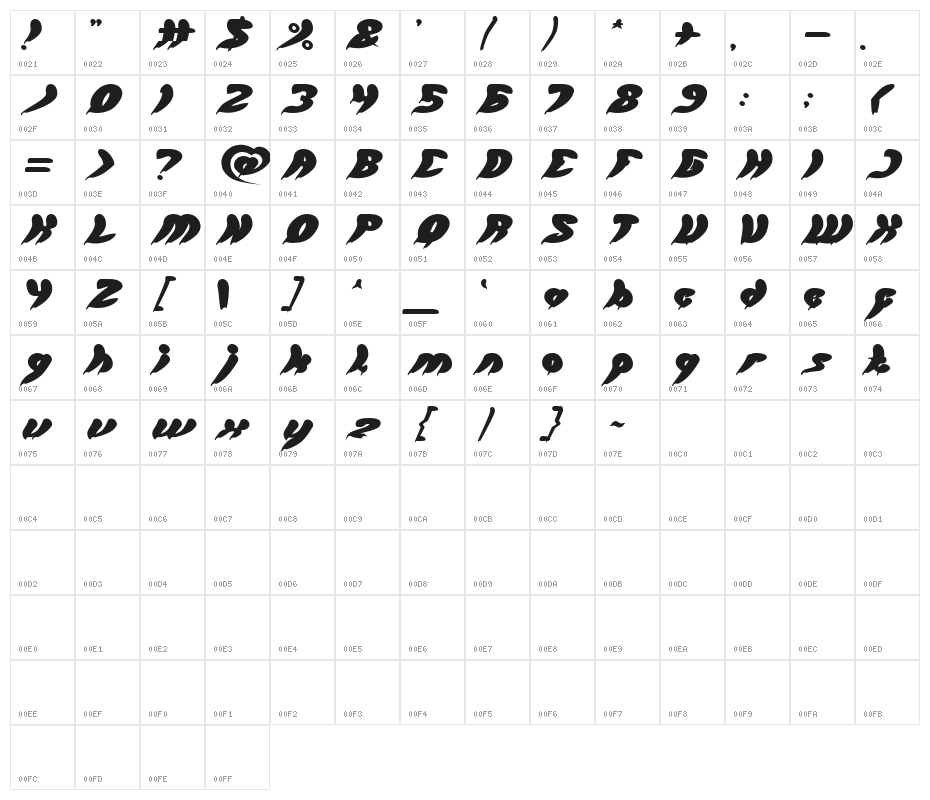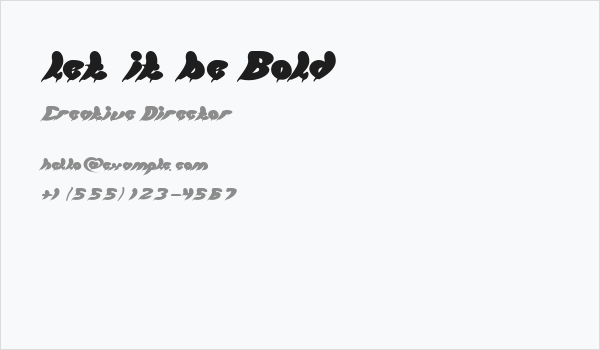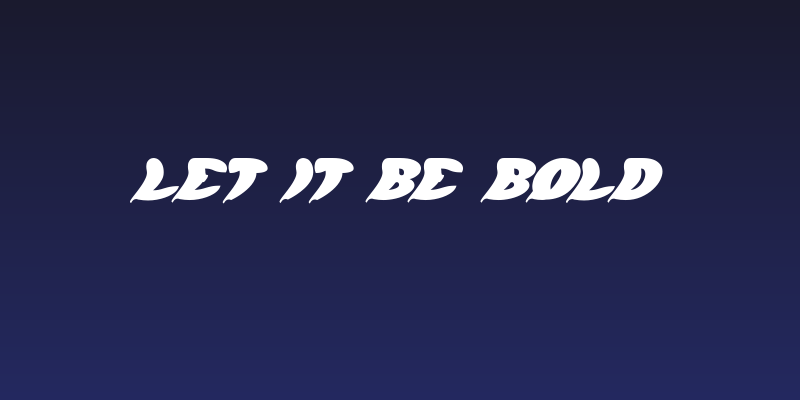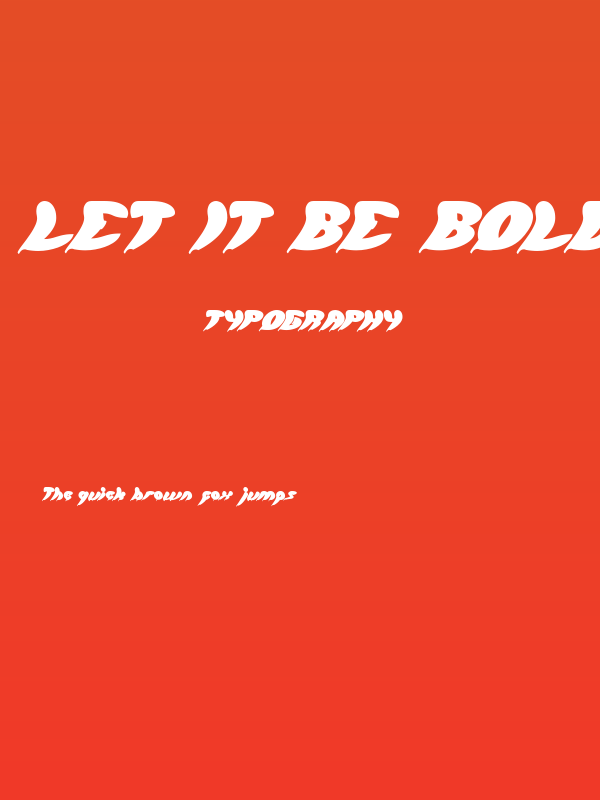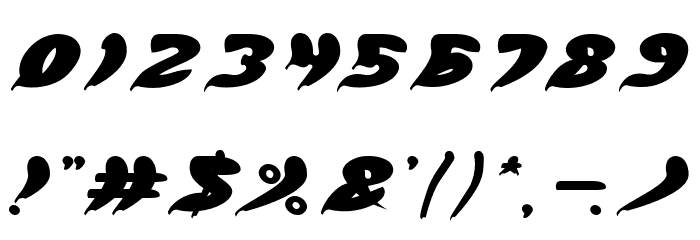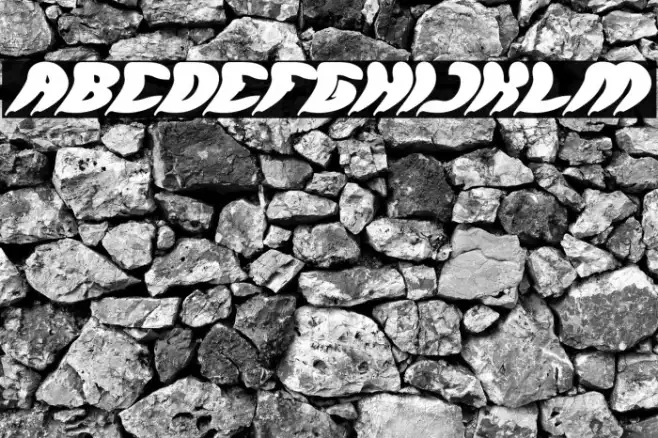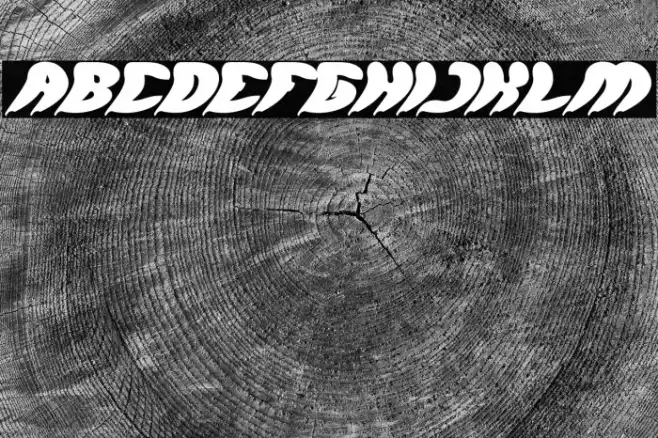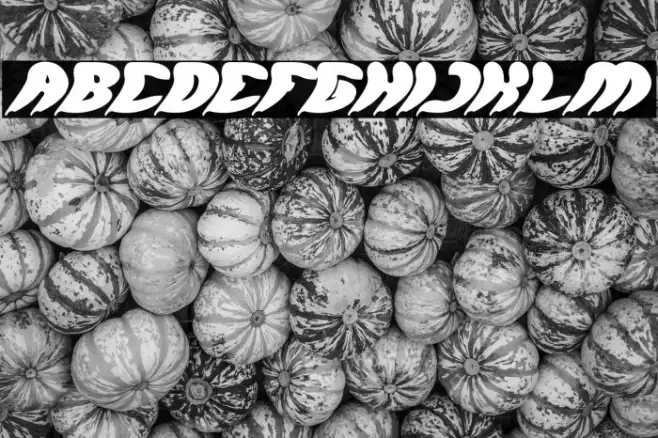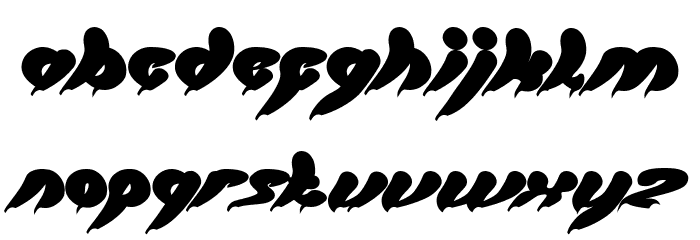
let it be Bold Font
let it be Bold Description
This bold and dynamic font features a highly stylized script with a strong, flowing appearance. The characters are designed with exaggerated curves and sharp edges, giving them a sense of movement and energy. The uppercase letters are particularly striking, with a dramatic flair that makes them stand out. The lowercase letters maintain the same energetic style, ensuring consistency across the typeface. The numbers and special characters are equally bold, complementing the overall aesthetic. This font's unique style makes it suitable for projects that require a strong visual impact.
| Proposed Projects | Ideal for music album covers, posters, branding, and any design that requires a bold, energetic look. |